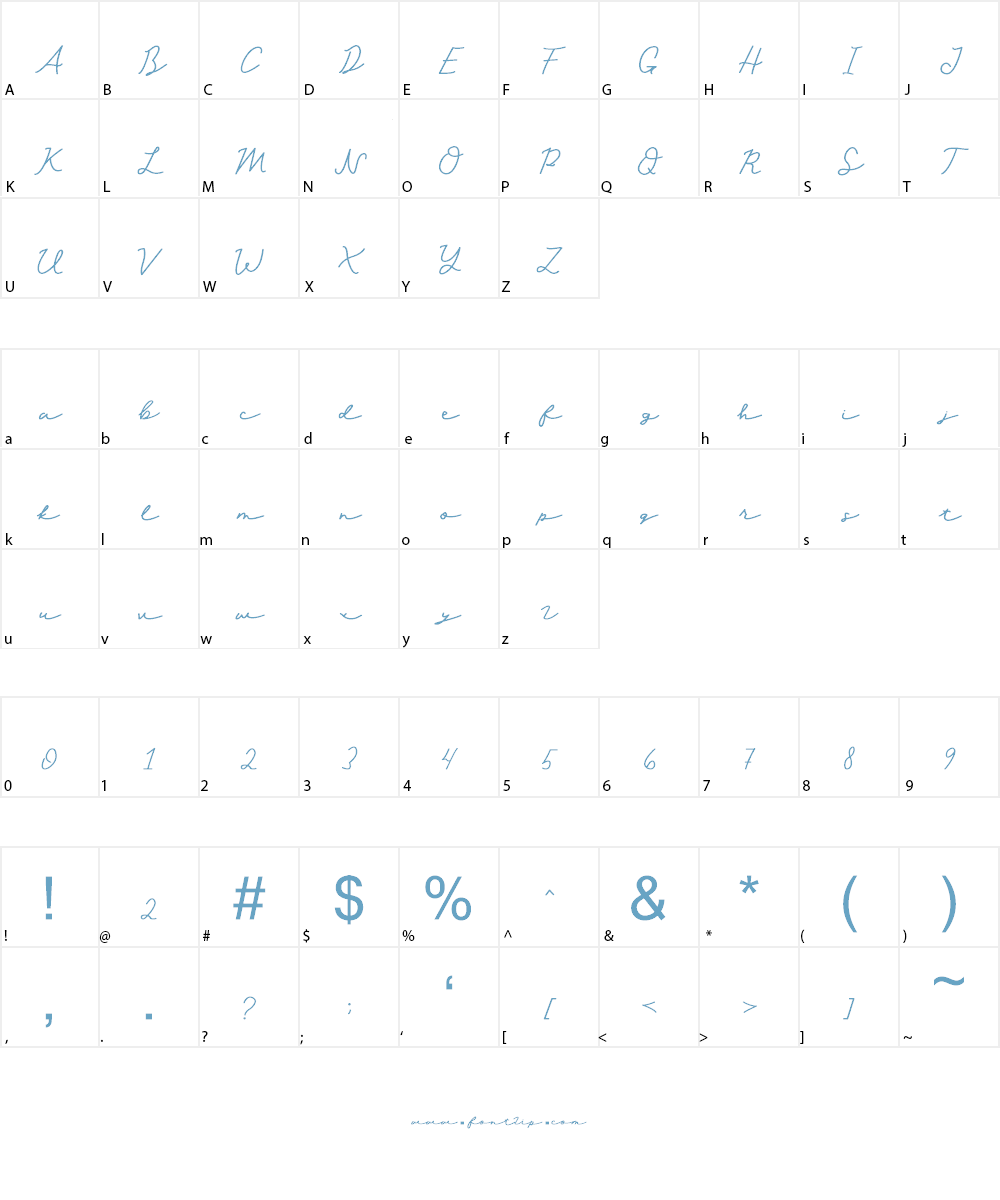
Zula Cotana is duo font that have urban and modern feeling also give nice vibe to your project. comes with script and sans that perfect paired each other and also with bonus logo that can you customize.